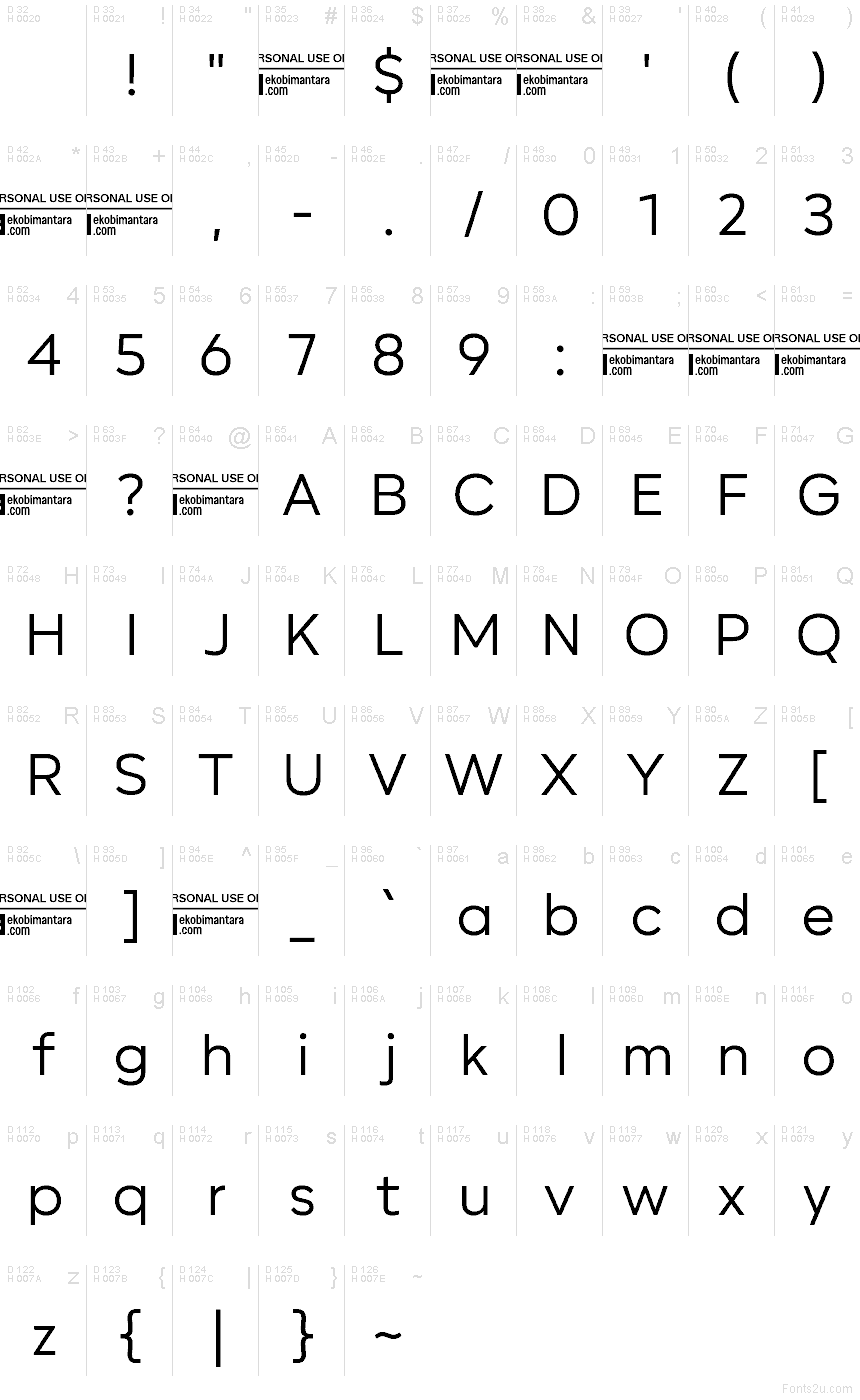
Geova Trial Regular
Geova font by Eko Bimantara is a free geometric sans serif font that solves the classic “friendly yet precise” brief. Its clean circles and open curves feel crisp without getting cold, with a single‑storey vibe that adds warmth and an easy, breathable rhythm. Sturdy strokes keep headlines confident, while the airy counters keep paragraphs from feeling cramped.
Using Geova, you can nail branding, tech landing pages, app UI, posters, packaging, and editorial spreads with one consistent voice. This free font shines on large titles and still holds up in mid‑size copy. Pair it with a quiet text serif for long reads, or track it slightly for punchy display work.